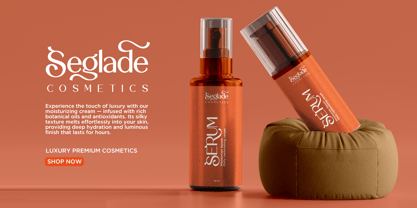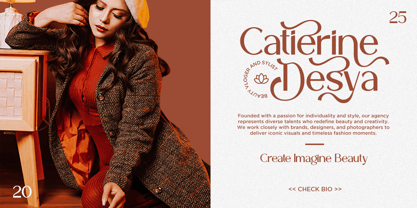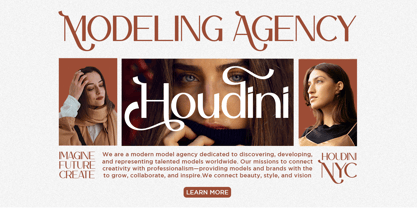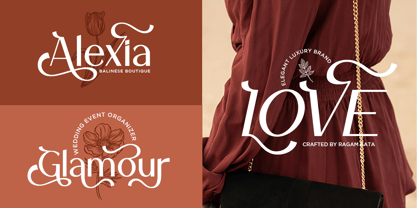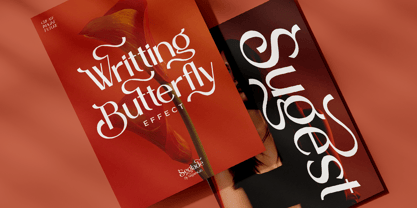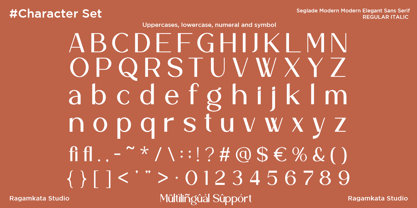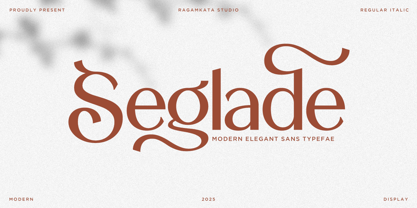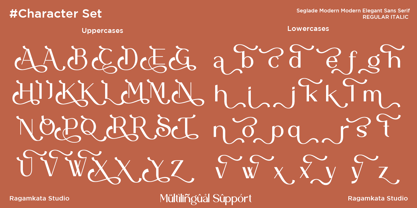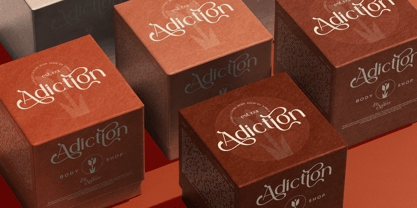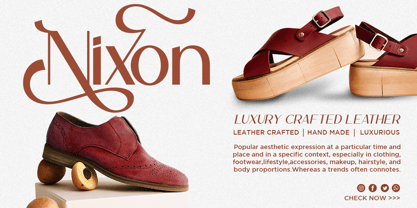
Seglade
Seglade is a modern elegant sans typeface that blends sophistication with expressive curves. Designed for high-end branding, editorial layouts, fashion logos, and luxury packaging, Seglade offers both Regular and Italic styles for versatile design needs. Its refined swashes and contemporary letterforms make it perfect for designers seeking timeless elegance and modern flair. File Included : - Seglade Regular - Seglade Italic - Alternates Uppercase - Alternates Lowewrcase - Multilingual Support Thanks, Have a wonderful Day Ragamkata Studio